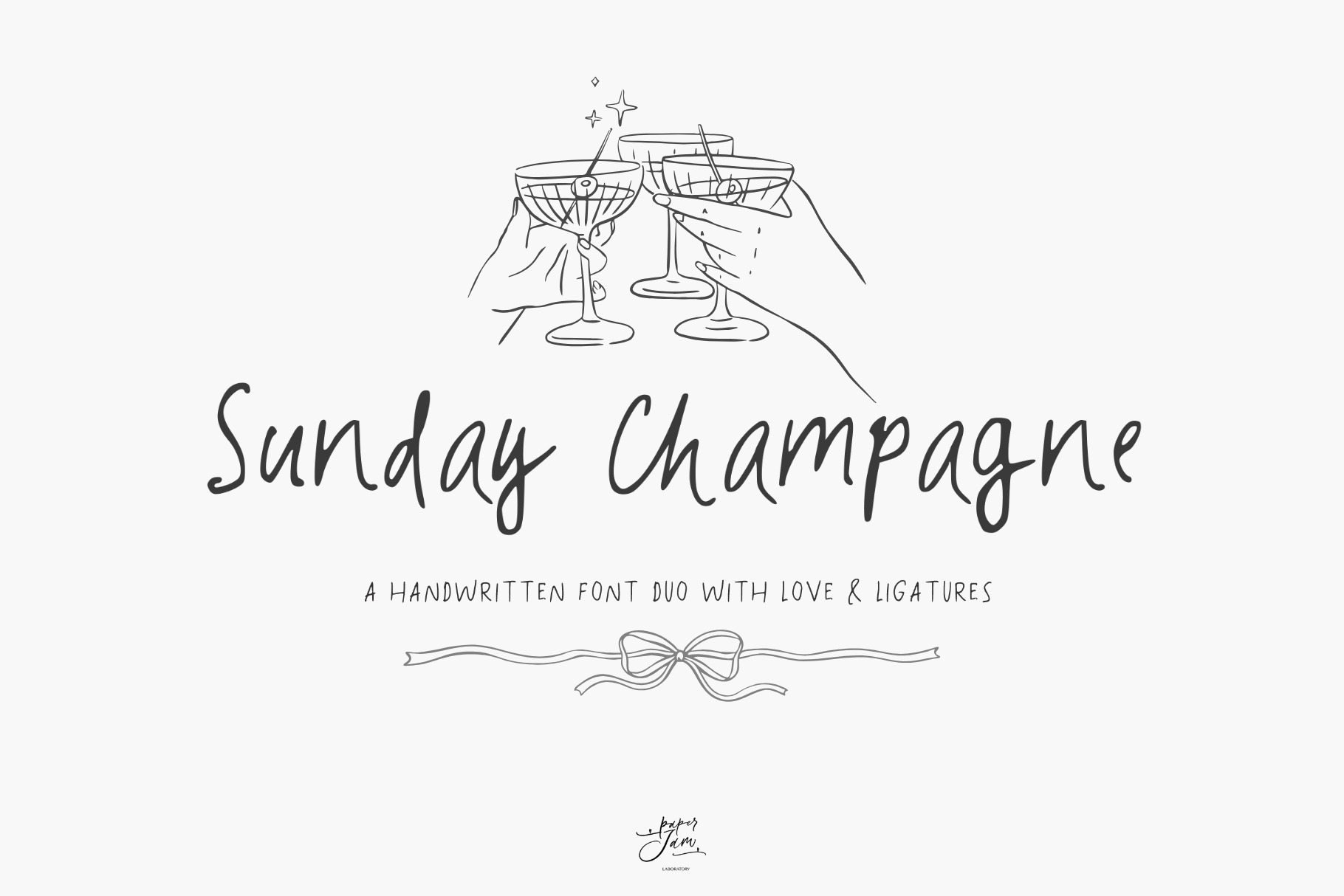
Sunday Champagne. Whimsical Font Duo
Sunday Champagne is a sophisticated font duo crafted for those who adore editorial aesthetics, modern minimalism, and whimsical elegance. This collection seamlessly pairs a breezy, handwritten script featuring natural-looking ligatures with a clean, structural companion font.
Inspired by sun-drenched Sunday mornings, high-fashion editorials, and the effortless chic of cocktail parties, this duo is the ultimate solution for premium branding, wedding stationery, and curated social media content.
Sunday Champagne Script: An elegant, flowing handwritten font with custom ligatures designed to mimic the rhythm of natural handwriting.
Sunday Champagne Duo: A minimalist and versatile companion font, perfect for sharp headers, clean subtext, and balanced layouts.
Full Character Set: Includes uppercase and lowercase letters, numbers, punctuation, and multi-language support.
\Unique Aesthetics: \ Perfectly aligns with Editorial, Modern Minimalist, Whimsical Luxury, and "Anti-bride" design trends.
Luxury wedding invitations and "Save the Date" cards.
High-end branding for fashion, beauty, and lifestyle boutiques.
Editorial-style layouts for magazines and lookbooks.
Chic packaging for cosmetics, candles, and home decor.
Atmospheric Instagram posts and stories with a film-grain vibe.